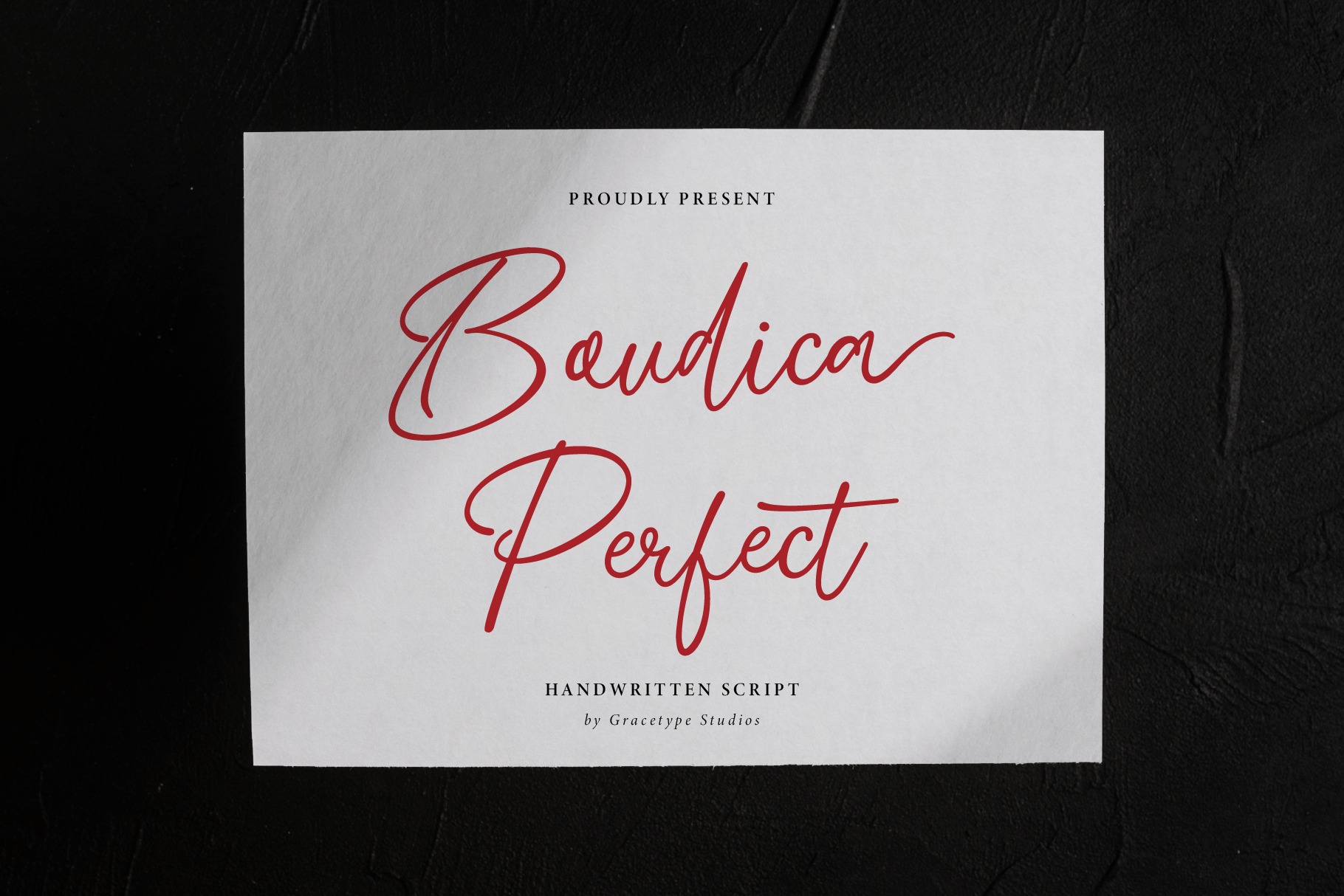
Boudica Perfect – Handwritten Script Font
Boudica Perfect – Handwritten Script Font brings a balanced structure and contemporary look, making it suitable for both digital and print design. Boudica Perfect | Handwritten Script, from Gracetypestudio, suitable for any projects such as: logos, branding projects, homeware designs, product packaging, mugs, quotes, posters, shopping bags, t-shirts, book covers, name card, invitation cards, greeting cards, label, photography, watermark, special events, and all your other lovely projects that need a Script taste.
Alternate and Ligature